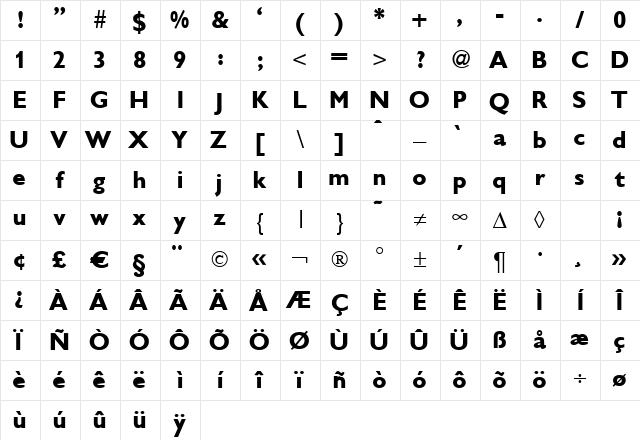
Gibson Bold Free Font
Gibson Bold
Gibson Family
Complete Gibson Bold glyph index. Displaying only characters natively supported by Gibson Bold font.
Design Context for Gibson
Gibson is a composed and adaptable typeface that performs quietly and consistently across a wide range of design contexts. Its bold stroke weight gives it real presence on the page.